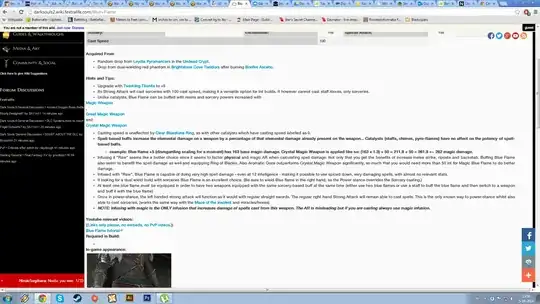
So since maybe a week or so, my the fonts on certain websites are looking rather off... They're jagged and often bigger than they used to be.
As an example, here’s the same page in both Chrome and Firefox (note: that the Chrome page used to look like the Firefox page):
Chrome
Firefox
As you can see (hopefully), the font in Firefox is much crisper. And it’s not just this website that doesn’t work properly, there are several others (yet not all, which is weird).
Anybody know how to fix this? I'd rather not switch browsers.
EDIT: Things I already tried: Resetting to default settings; Trying to enable/disable Direct Write (option isnt available in the list); Adding "/high-dpi-support=1 /force-device-scale-factor=1" to executable
On Windows 10 & Chrome version 52 I could not find any "DirectWrite" option in the experiments tab.
However, I was able to resolve the issue by disabling a different experiment:
Set "Accelerated 2D Canvas" to "Disabled"
(In the browser's address bar, go to chrome://flags#disable-accelerated-2d-canvas, change the setting, relaunch the browser.)
Since the fix for this issue has clearly changed, I would suggest in general turning off any hardware-accelerated text-rendering/2D-rendering features in the future if this fix stops working.
On Google Chrome 55, this issue appears to have cropped up again. As anticipated, the fix was disabling hardware acceleration, it just changed locations.
The new fix (for me) appears to be:
Settings -> Show advanced settings... -> System
UNCHECK "Use hardware acceleration when available"
GDI rendering has been removed from Chrome for Windows as of version 52, so the option to disable DirectWrite has been removed. – Brian Nixon Aug 10 '16 at 17:09
• Bummer, didn't work for me either. (Windows 7, Chrome 52, regular zoom. The obsolete DirectWrite option did do the trick for me in older versions of Chrome.) – Arjan Aug 15 '16 at 06:48
• For future reference, as for the removal of GDI: https://bugs.chromium.org/p/chromium/issues/detail?id=579678 – Arjan Aug 15 '16 at 06:59
• Worked for me today. Chrome fonts weren't displaying correctly as of about a week ago. Perhaps a NVidia graphics driver update screwed with this? – Phlucious Sep 13 '16 at 17:53
• @Phlucious I have intel graphics drivers, so I don't think it's an Nvidia issue. – mrswadge Nov 30 '16 at 15:18
• This worked for me in version 54, and thank FSM!! – dldnh Nov 30 '16 at 19:59
• @mrswadge I had this happen again recently. In my case I think the cause was creating the Chrome window while in a Remote Desktop session from home, then logging into the workstation when I got back to work. Because Remote Desktop uses a different system font than my system default, closing that Chrome window messed with Chrome's defaults somehow. – Phlucious Dec 07 '16 at 00:00
• @Phlucious: This is a very possible reason. I also use RDP quite often, so your theory seems plausible. – mrswadge Dec 07 '16 at 09:35
• @Phlucious This issue happened to me right after a remote support session. I use a pretty high-resolution monitor, and I would imagine the support representative was using an HD monitor or lower. Your theory is probably correct. This issue also affected all of my Electron apps. – NetherGranite Feb 22 '19 at 01:24
This worked for me:
1. Open Google Chrome
2. Open a new tab and enter the following in the address bar: chrome://flags/#disable-direct-write
3. Click "enable" to enable this switch, disabling the use of Microsoft DirectWrite by Google Chrome.
4. Close and re-open Chrome.
Easiest fix I have seen for Chrome v53 is to enable 2G for web font loading - chrome://flags/#enable-webfonts-intervention-v2
New version of User Agent Intervention for WebFonts loading. Mac, Windows, Linux, Chrome OS, Android Enable New version of User Agent Intervention for WebFonts loading. #enable-webfonts-intervention-v2
Enabled:2G
• Thanks, this worked for me, as did this solution http://superuser.com/a/1112095/155435. I was then able to revert all settings to default and it appeared to still be okay. – mrswadge Nov 30 '16 at 15:22
• This also worked for me. **Note:** I had to disable the "accelerated 2d canvas" and "Use hardware acceleration when available" settings. – gr1zzly be4r Feb 15 '17 at 15:29
In my case (Chrome 58 on Windows 10) I did following: I first went to:
chrome://flags/#top-chrome-md
OR  alternately in RegEdit ...
FONTSMOOTHING=2 FONTSMOOTHINGTYPE=2
FONTSMOOTHINGORIENTATION=1 for LCD-screen, 0 for CRT-screen
I encountered the same poor-font-rendering issue immediately after making a system tweak. Undoing the tweak corrected the rendering issue. In an attempt to speed up my machine, I modified System Properties/Advanced/Performance to adjust for best performance, which disabled "Smooth edges of screen fonts." When that option was re-enabled, the font rendering issue disappeared.